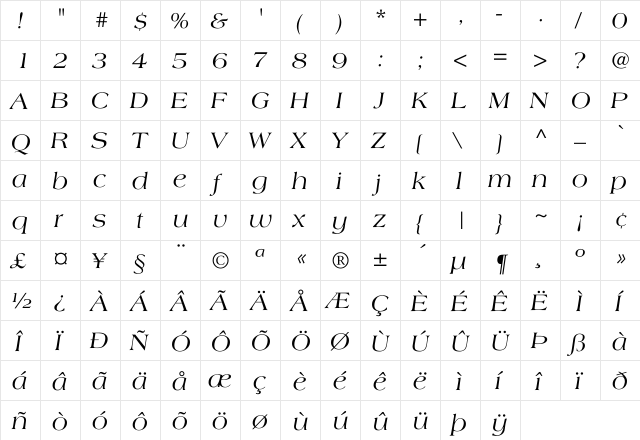
Americana-Italic Regular
Design Context for Americana-Italic Typeface
Americana-Italic offers clean, dependable letterforms without strong stylistic allegiance, making it a practical choice for designers who need flexibility. The dynamic lean of this cut emphasises speed and emphasis in any layout.
Pro Tip: Use Americana-Italic for emphasis, pull quotes, and subheadings where its slanted energy can add rhythm to the layout.